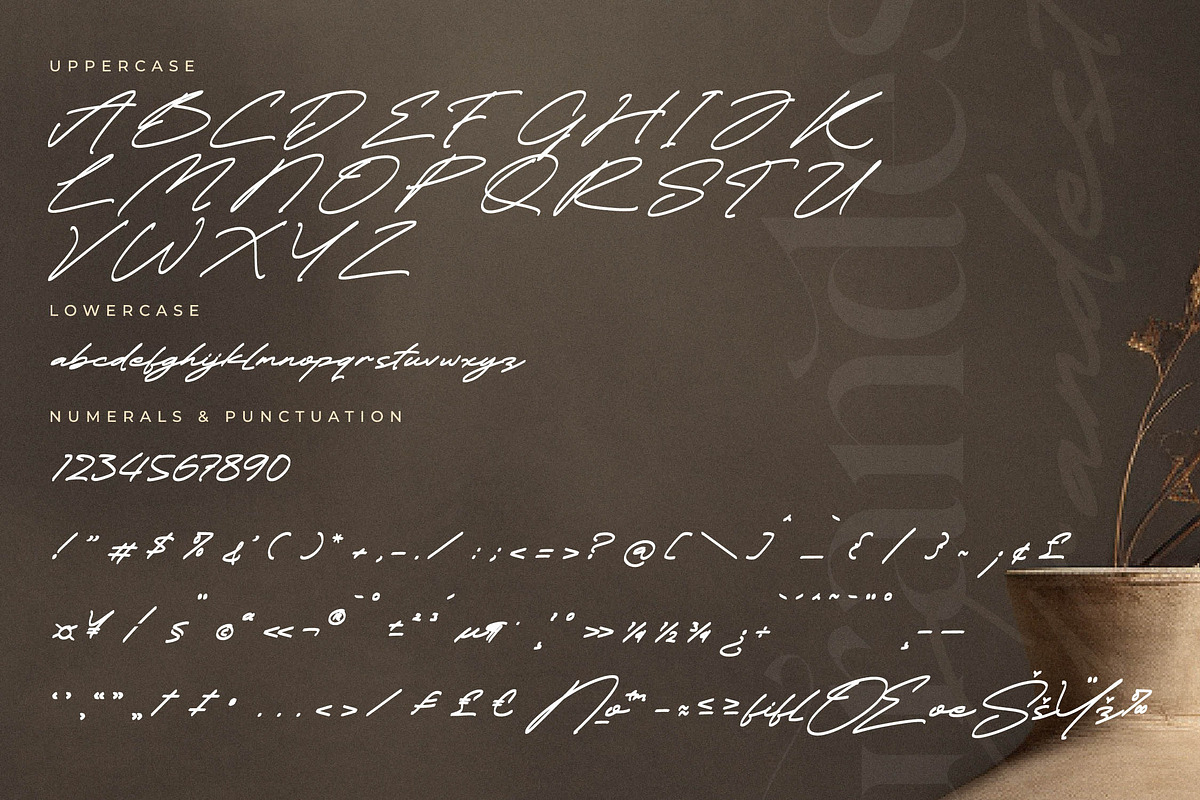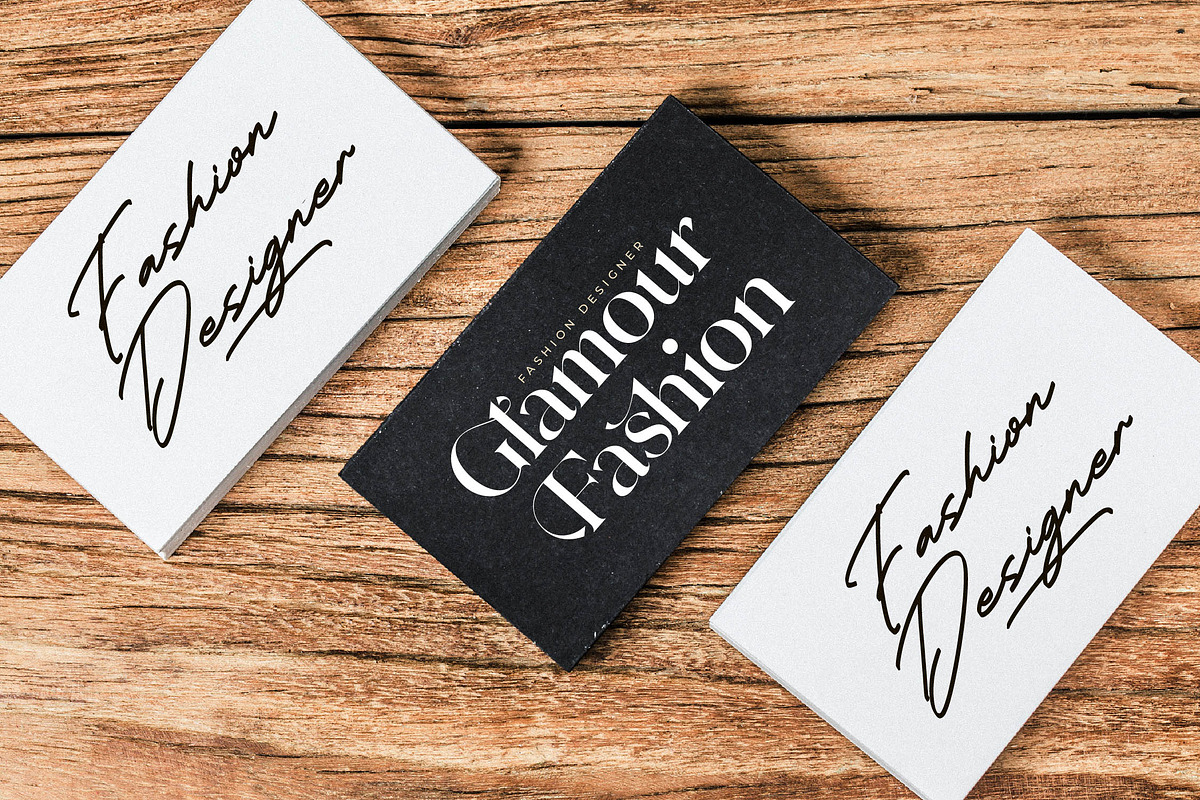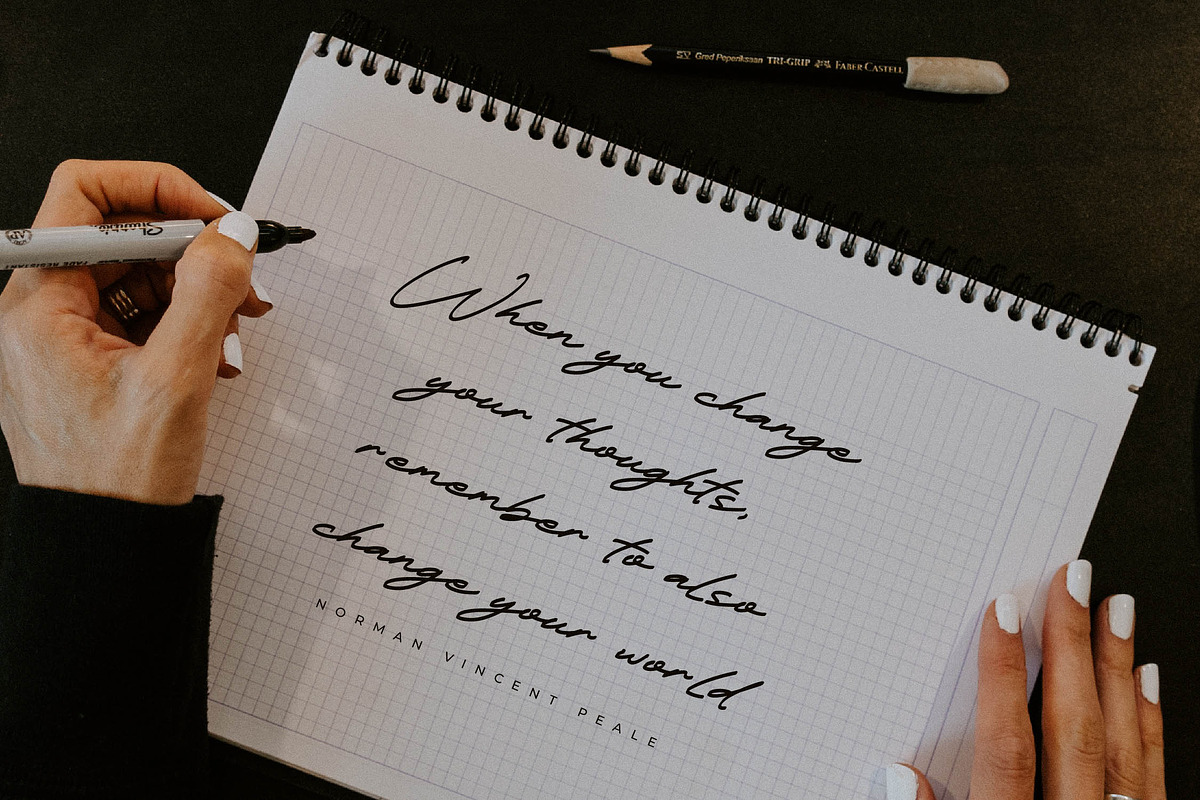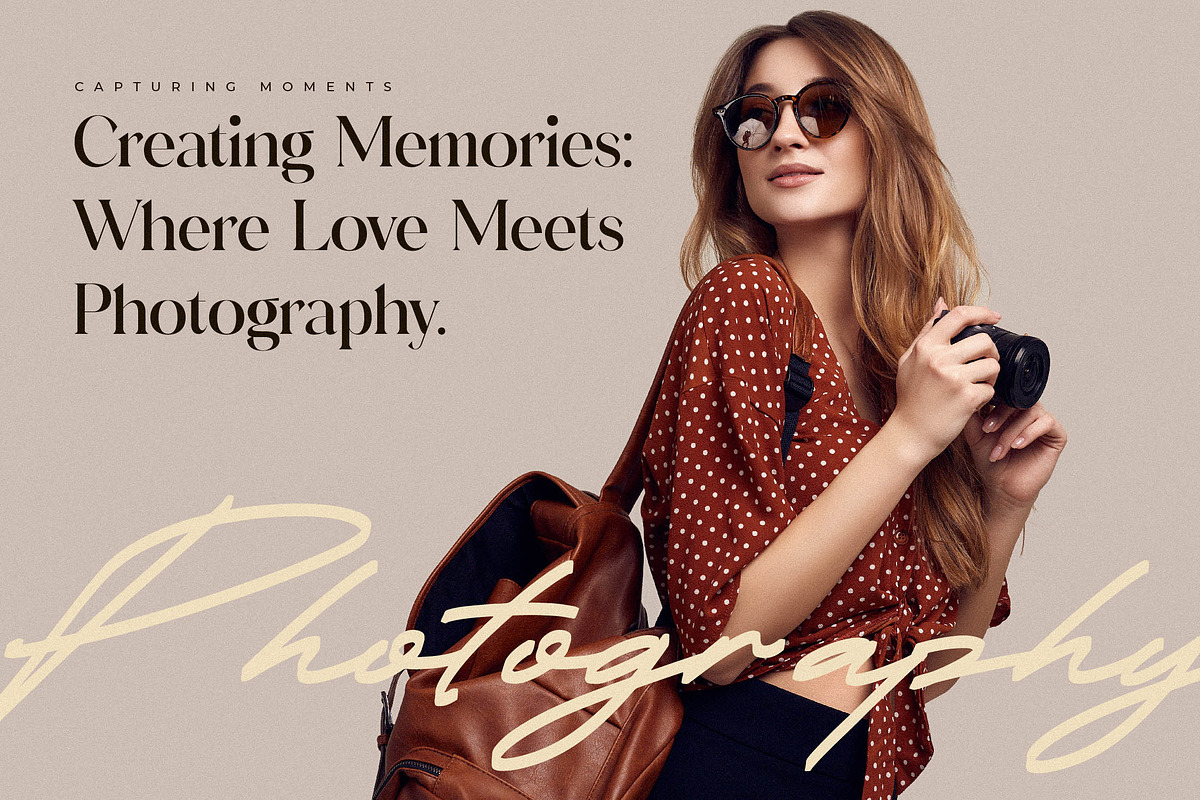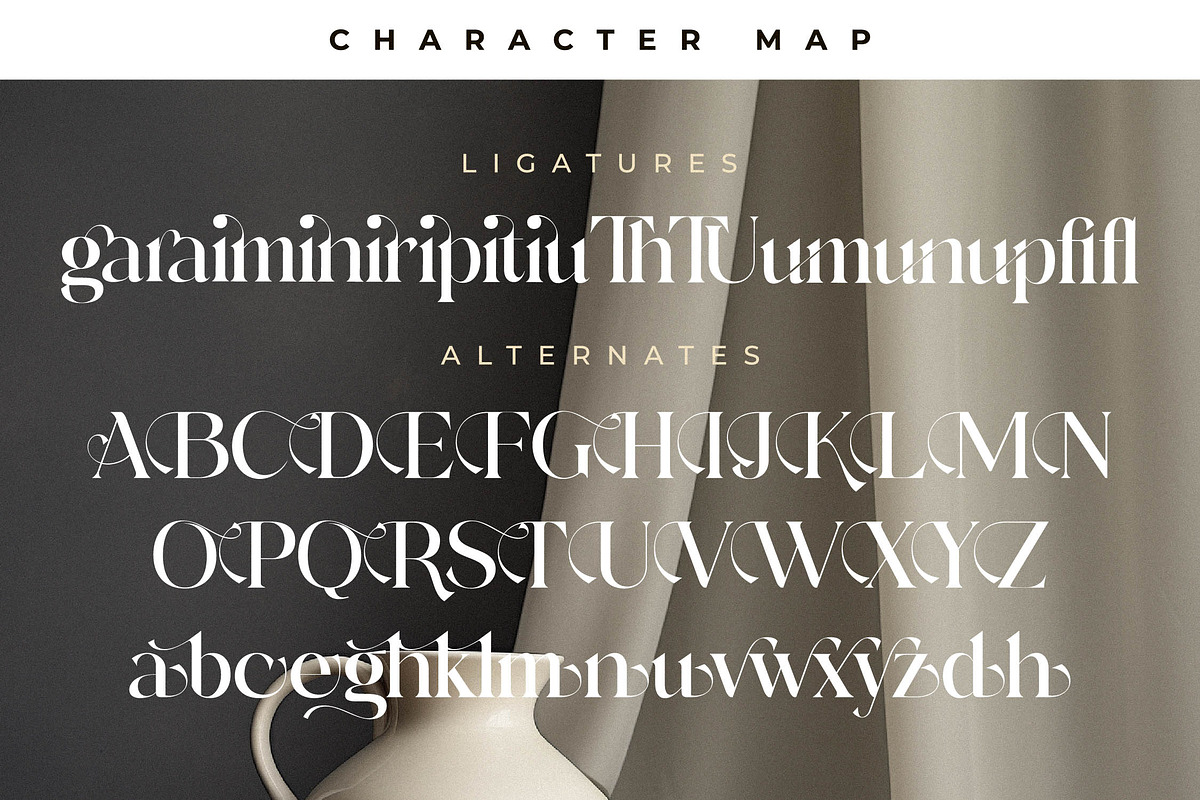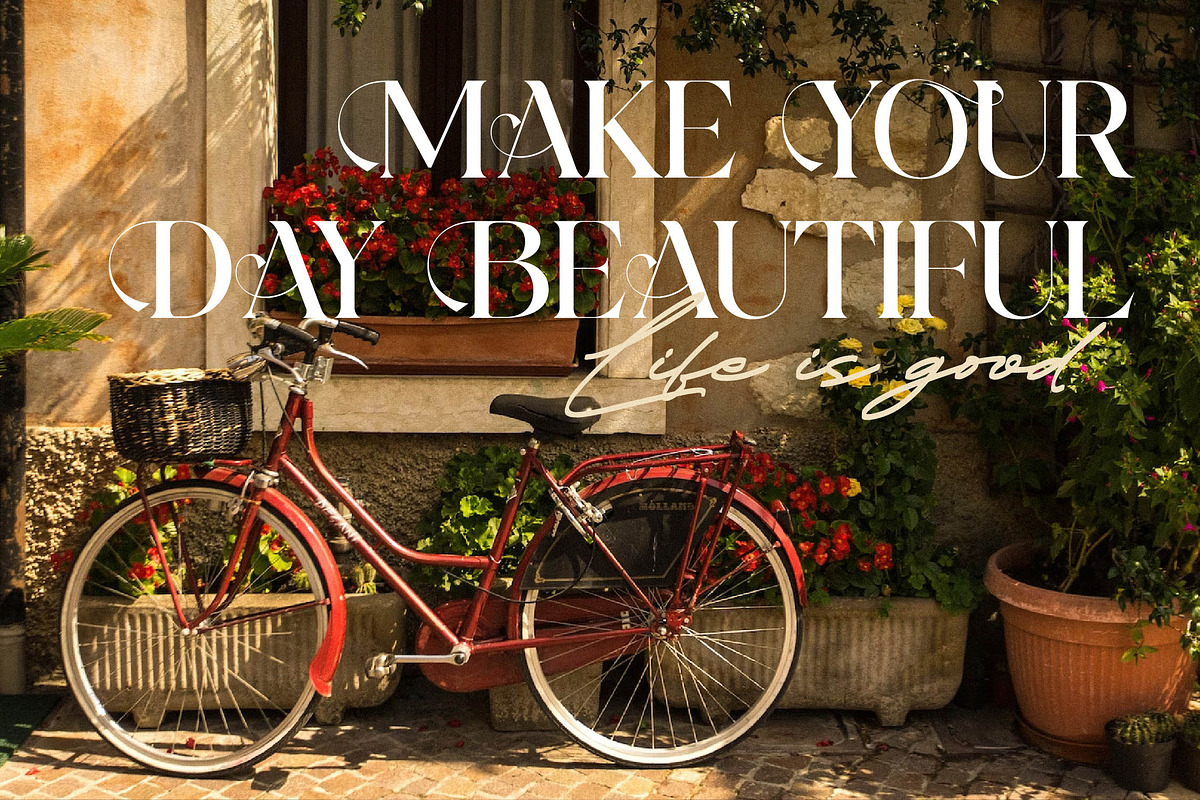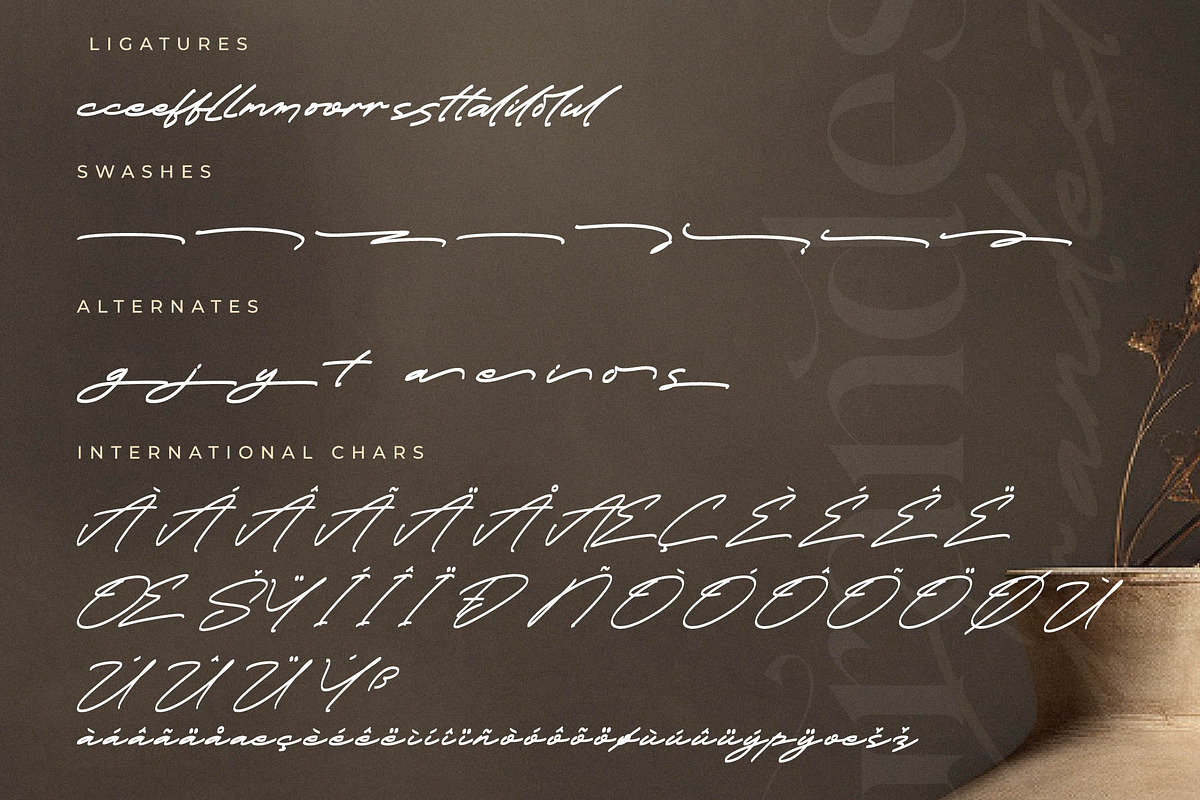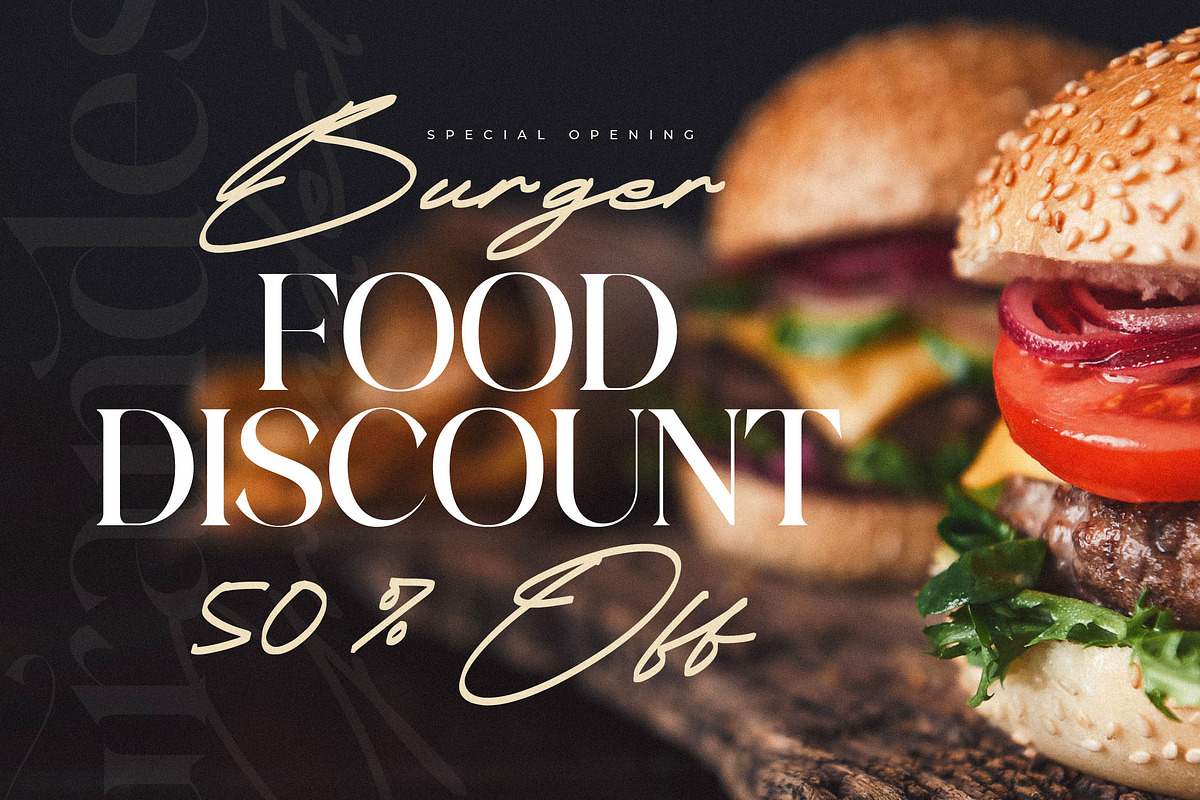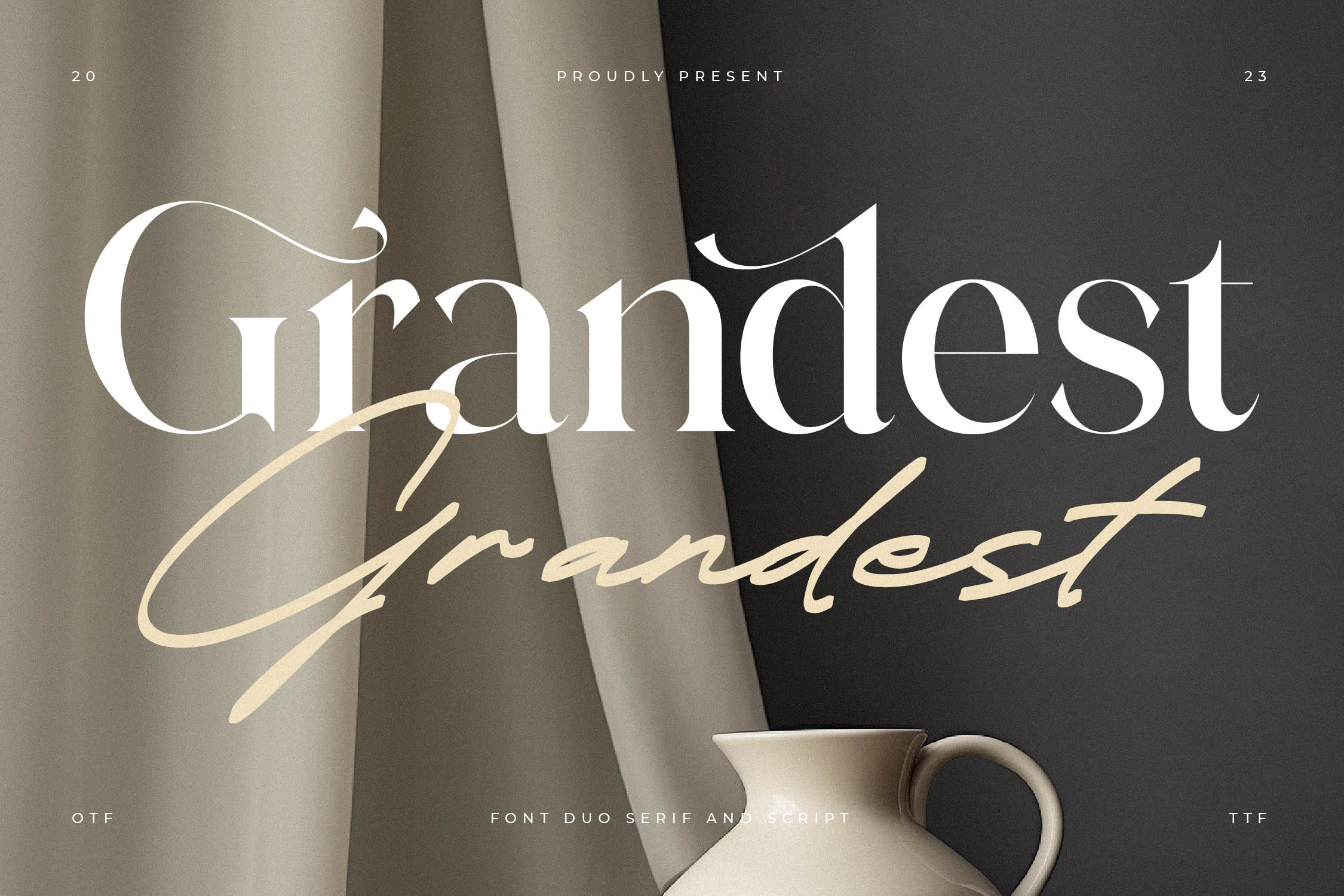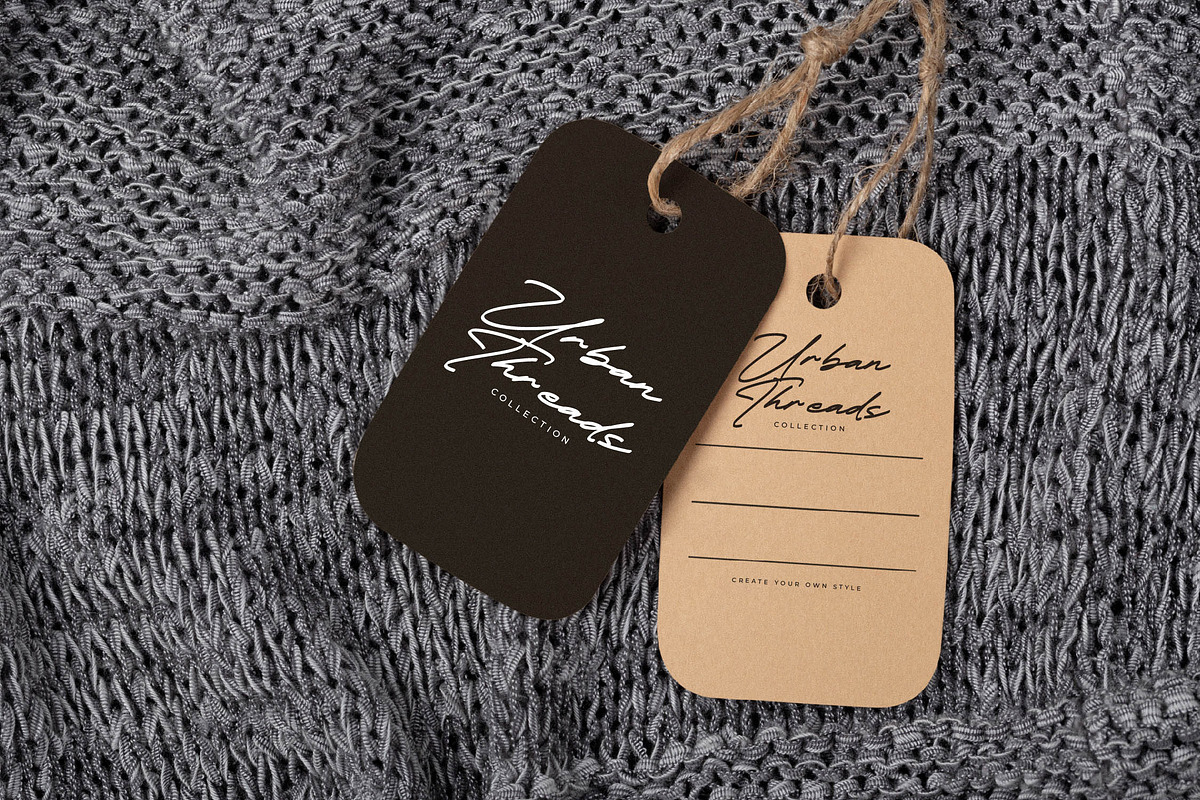
Grandest Modern Font Duo
Proudly present Grandest Font Duo , created by Storytype, A serif and script typeface that has own unique style & modern look. This typeface is perfect for an elegant & luxury logo, book or movie title design, fashion brand, magazine, clothes, lettering, quotes, and so much more.